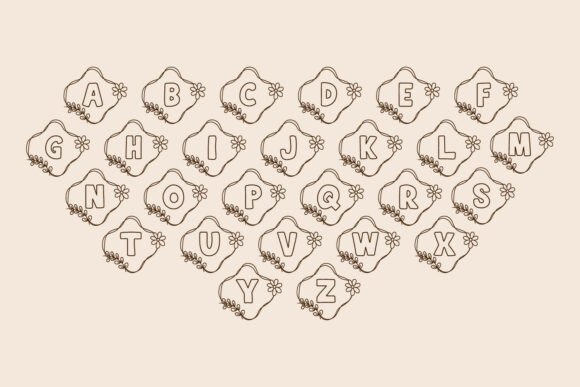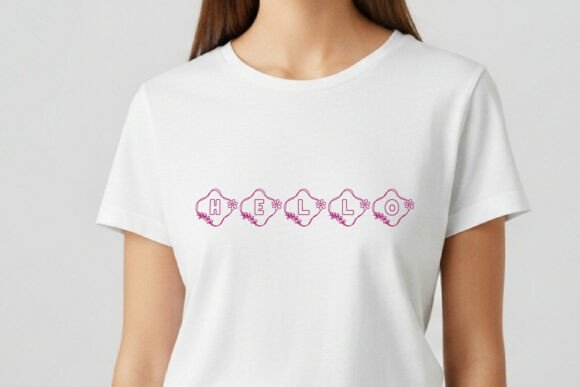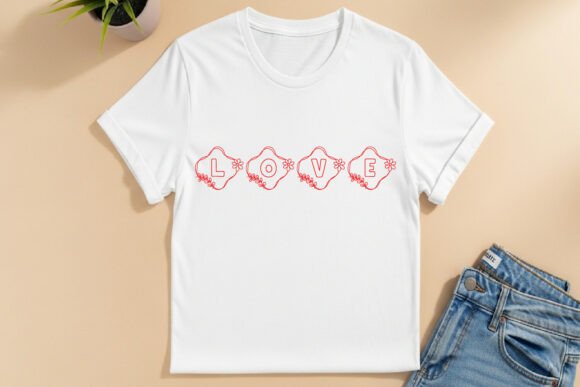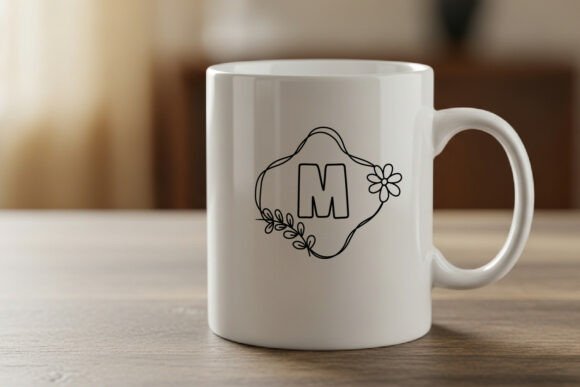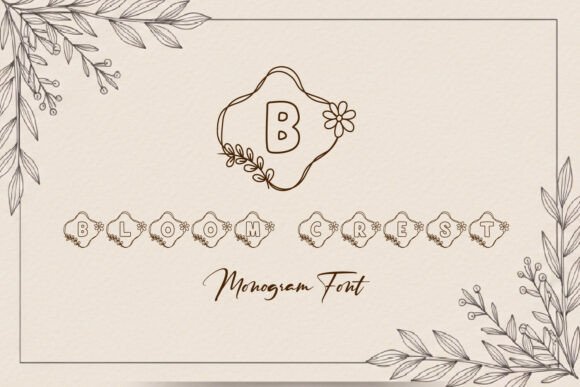
Bloom Crest Monogram Font: Elevate Your Designs with Charming Floral Elegance
Are you a designer or crafter looking for a unique and elegant font to elevate your creative projects? Look no further than the Bloom Crest Monogram Font, a charming decorative alphabet that combines hand-drawn floral frames with bold uppercase initials. This beautiful font is perfect for a wide range of applications, from monogram logos and wedding invitations to Cricut crafts and personalized gifts.
What is Bloom Crest Monogram Font?
Bloom Crest Monogram Font is a decorative alphabet designed in a playful and elegant botanical style. The font features hand-drawn floral frames that are intricately combined with bold uppercase initials, creating a unique and eye-catching look. The minimal floral details and clean outlined design make it ideal for both feminine and modern creative projects.
Key Features of Bloom Crest Monogram Font
- Hand-drawn floral frames: Each letter is carefully crafted with intricate floral frames that add a touch of elegance to your designs.
- Bold uppercase initials: The bold uppercase initials provide a striking contrast to the delicate floral frames, creating a beautiful and eye-catching effect.
- Playful and elegant botanical style: The font’s botanical style is both playful and elegant, making it perfect for a wide range of creative projects.
- Minimal floral details: The minimal floral details ensure that the font remains clean and easy to read, while still adding a touch of elegance to your designs.
- Clean outlined look: The clean outlined design makes the font versatile and suitable for both digital and print applications.
Uses for Bloom Crest Monogram Font
Bloom Crest Monogram Font is a versatile font that can be used for a wide range of creative projects, including:
- Monogram logos: Create stunning monogram logos for businesses or personal brands.
- Cricut crafts: Use the font to create beautiful Cricut crafts, such as paper flowers, cards, and decorations.
- Sublimation: Apply the font to sublimation projects, such as mugs, tumblers, and phone cases.
- Wedding invitations: Add a touch of elegance to wedding invitations, save-the-date cards, and other wedding-related stationery.
- Nursery decor: Create adorable nursery decor, such as wall art, mobiles, and baby shower gifts.
- Stickers: Design beautiful stickers for laptops, journals, and other applications.
- T-shirt designs: Create stunning T-shirt designs for personal or business use.
- Scrapbooking: Add a touch of elegance to scrapbooking pages and projects.
- Personalized gifts: Use the font to create personalized gifts, such as customized mugs, tote bags, and more.
Why Choose Bloom Crest Monogram Font?
There are many reasons why Bloom Crest Monogram Font stands out from other decorative fonts:
- Unique and eye-catching design: The font’s unique combination of floral frames and bold uppercase initials creates a stunning effect that will set your designs apart.
- Versatile: The font is suitable for a wide range of creative projects, from digital applications to print materials.
- Elegant and playful: The font’s botanical style is both elegant and playful, making it perfect for a variety of design applications.
Bloom Crest Monogram Font is a beautiful and versatile decorative font that is perfect for designers and crafters looking to elevate their creative projects. With its unique combination of hand-drawn floral frames and bold uppercase initials, this font is sure to add a touch of elegance and sophistication to any design. Whether you’re creating monogram logos, wedding invitations, or personalized gifts, Bloom Crest Monogram Font is the perfect choice.